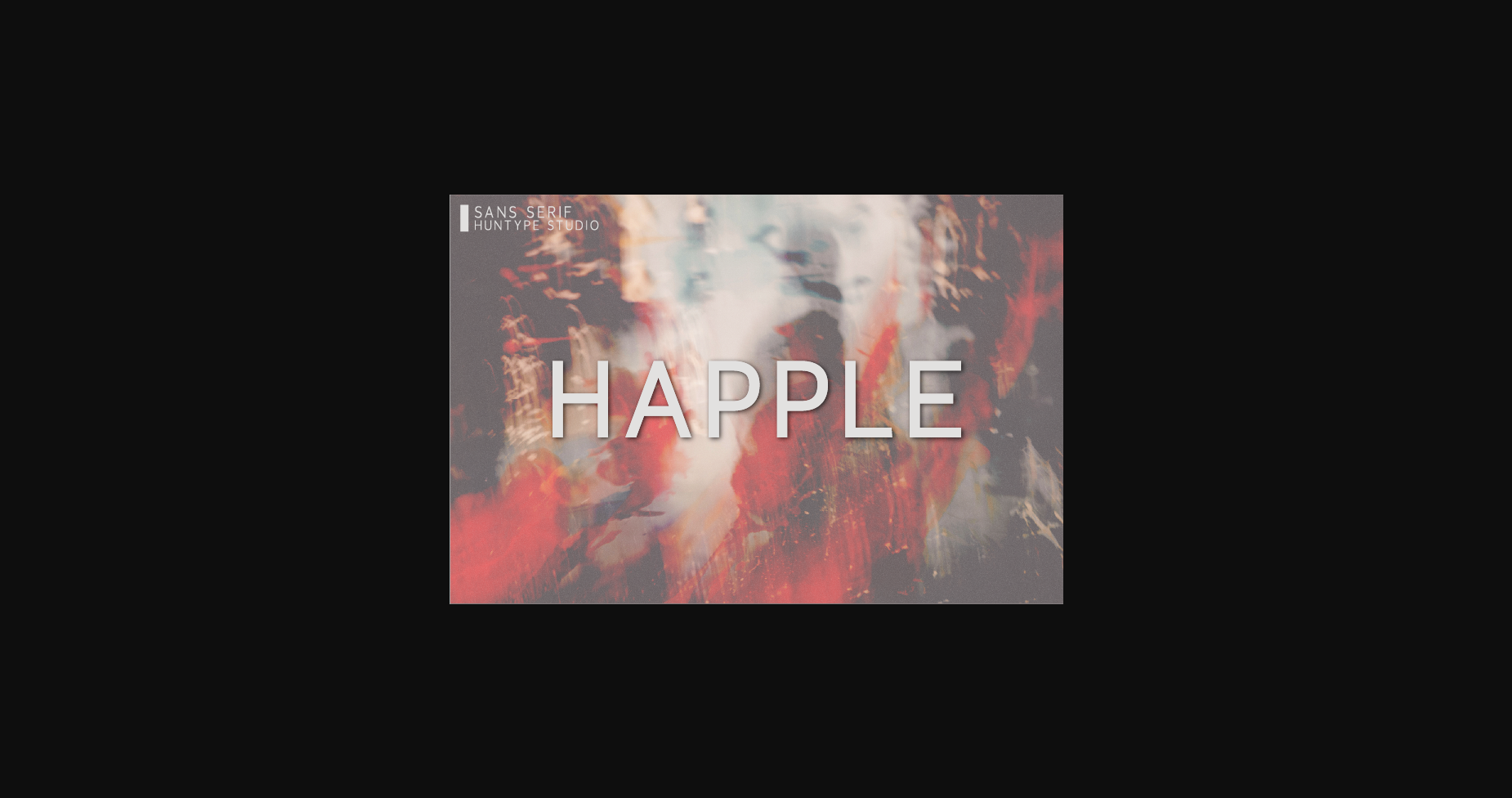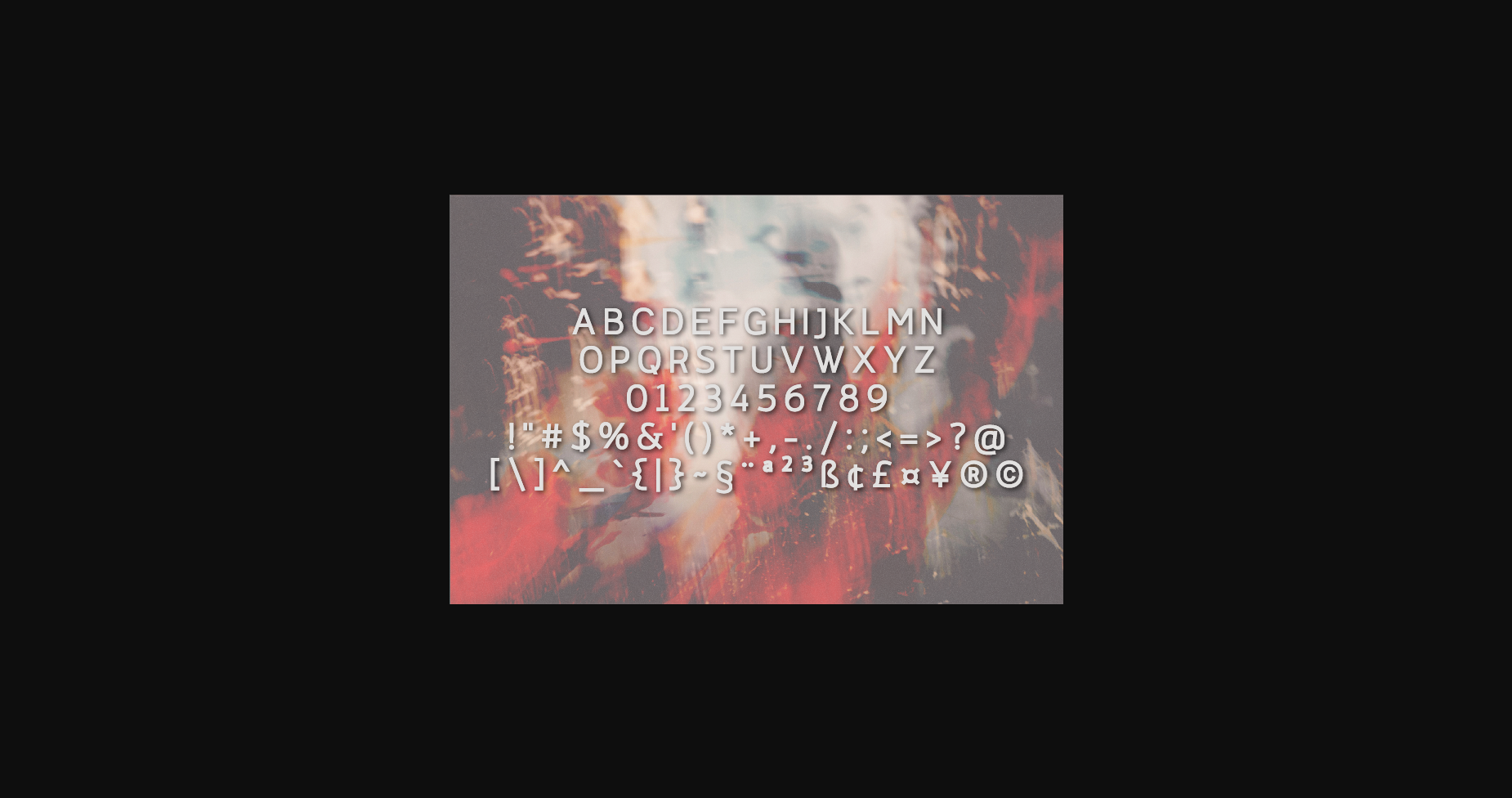
About Happle Font
Happle is a natural and authentic sans serif font. This font is ideal for writing web designs, business cards, or pretty much anything else that requires a unique touch.